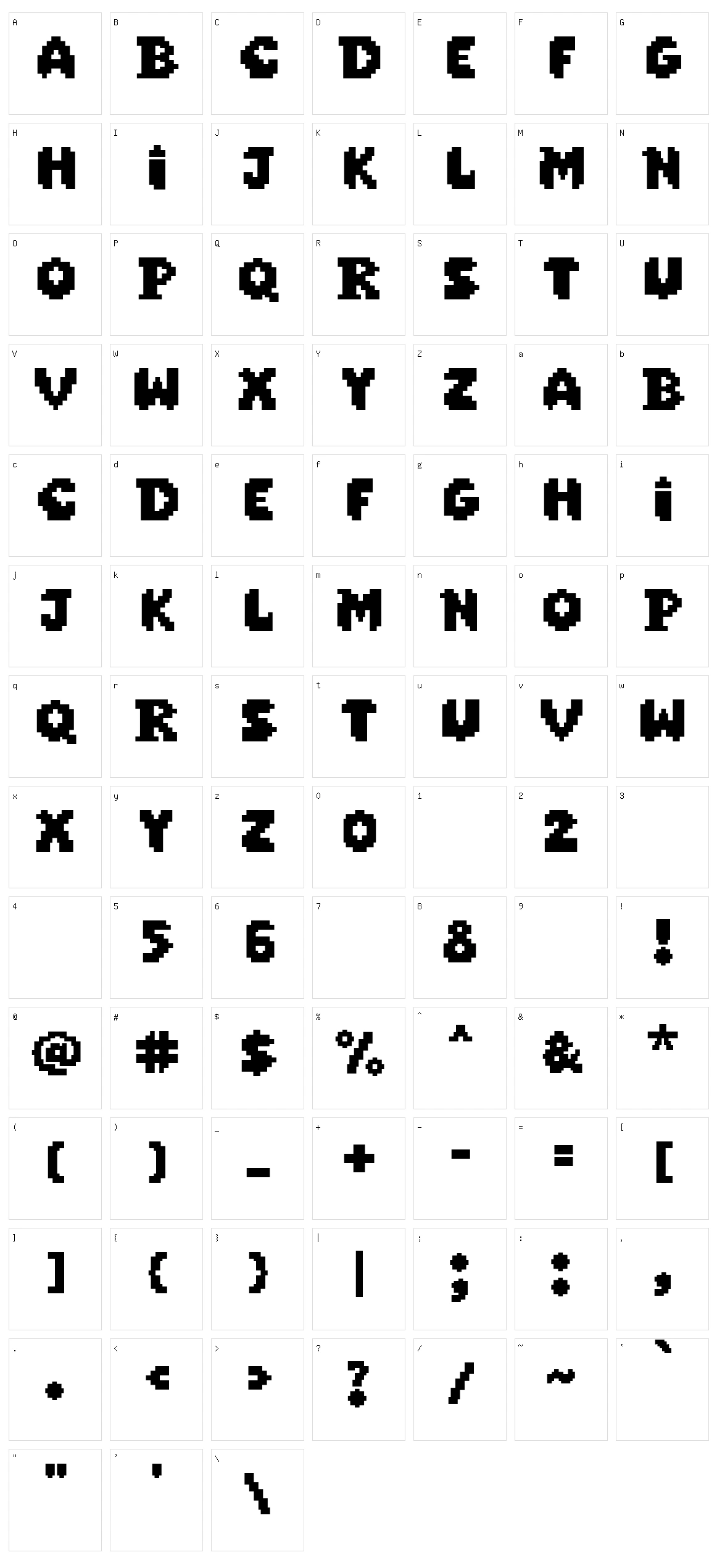
Super Pixel
Super Pixel: Where Fancy, Bold, and Unique Pixels Collide
Super Pixel isn't your average pixel font. It's a bold statement for those who crave uniqueness. It's where playful fancy meets uncompromising strength, all rendered in the charming grit of pixels.